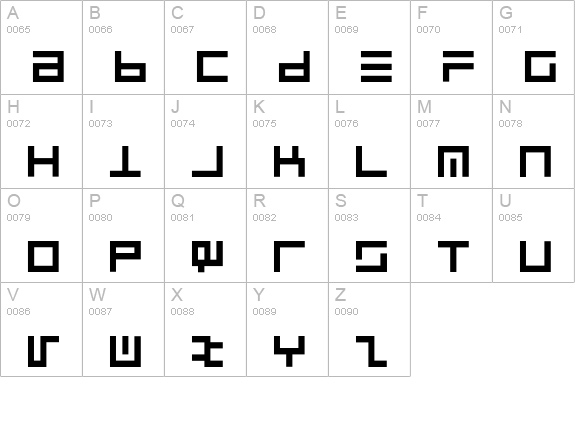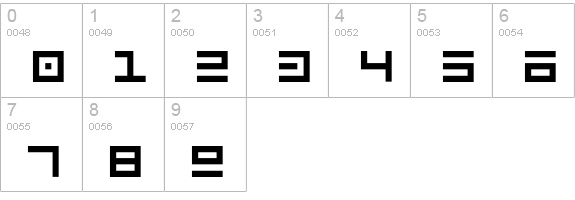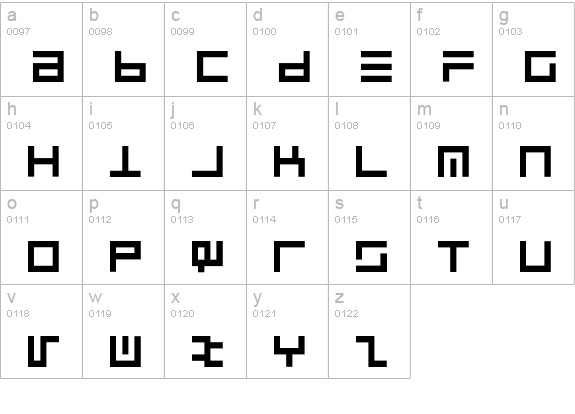
LinearFace Font Details
Introducing LinearFace font, a sleek and modern typeface that exudes elegance and professionalism. With its clean lines and sharp edges, LinearFace is perfect for creating stylish and sophisticated designs. Whether you're working on a branding project, logo design, or any other creative endeavor, this versatile font will make your work stand out. What's even better is that LinearFace is available for free download at FontsMarket.com. Yes, you read that right – you can elevate your design projects with this beautiful font without spending a penny. Don't miss out on the opportunity to add LinearFace to your font collection and bring a touch of class to your designs. Download it now and let your creativity soar with this exceptional typeface.